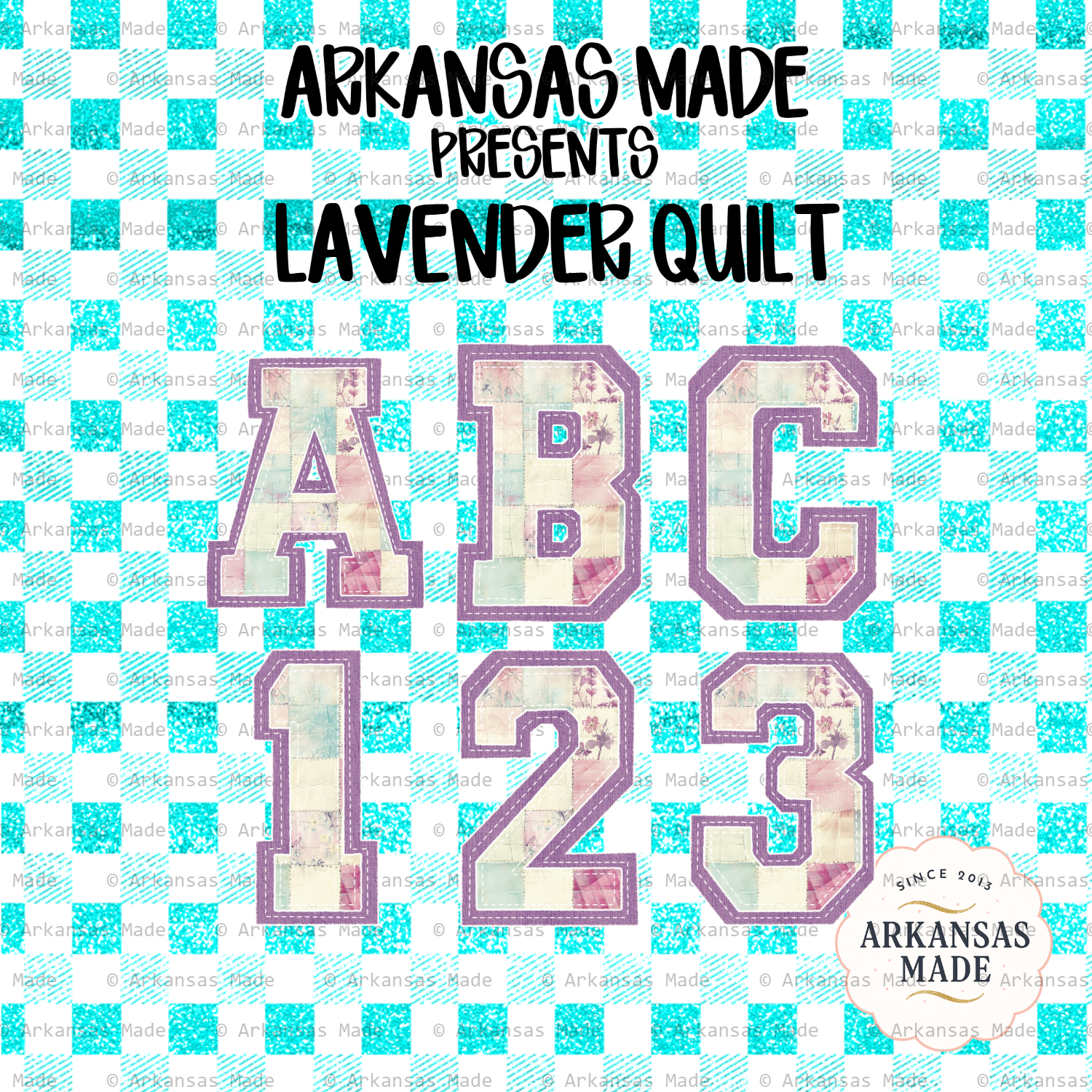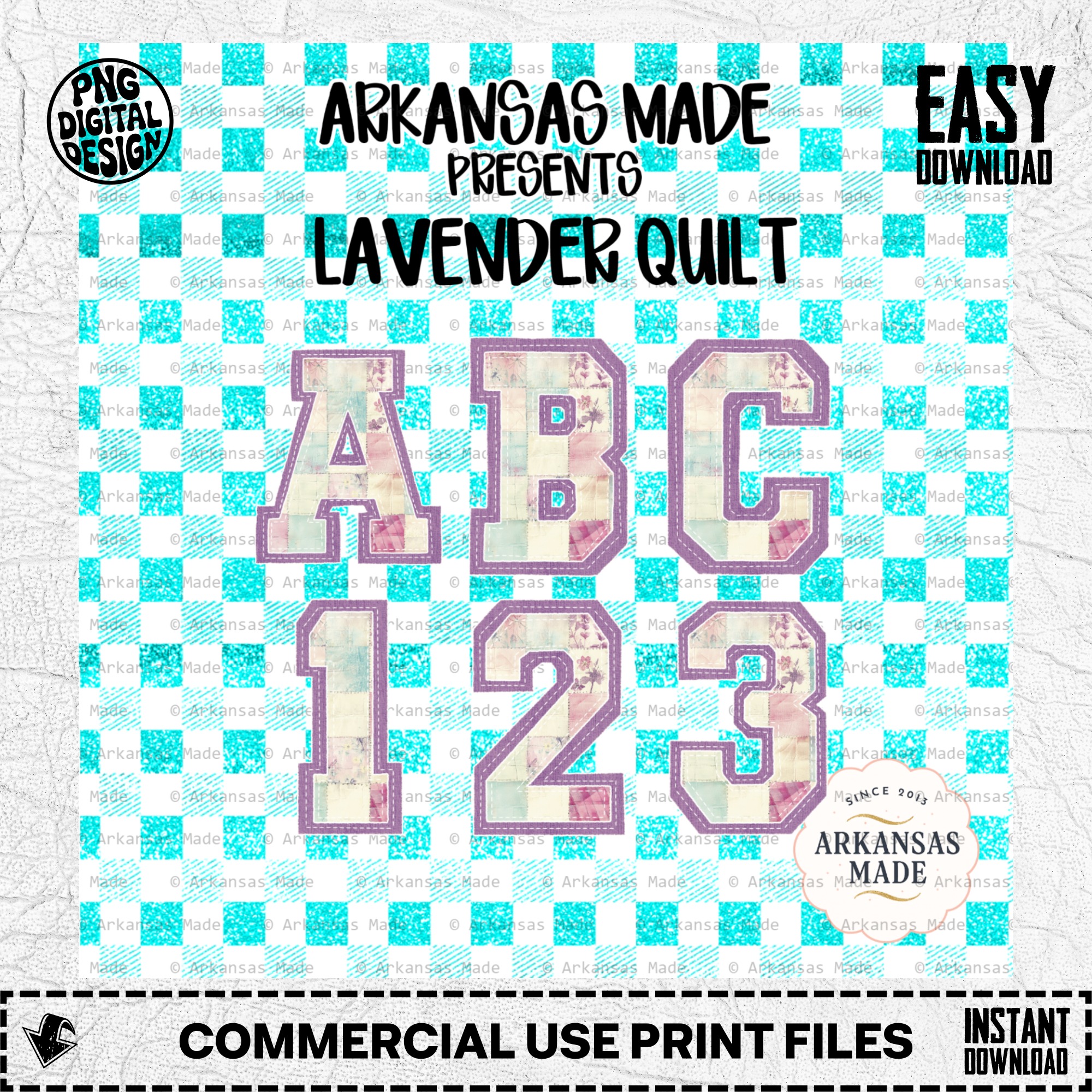
Lavender Quilt Alpha PNG Digital Alphabet Letters, Patchwork Font Sublimation Design, Cottagecore Craft Supply Download
Discover our Lavender Quilt Alpha PNG Digital Alphabet, perfect for charming sublimation designs and personalized crafts. Instant download for your creative projects! This beautiful quilted letter and number set features a delicate patchwork design with a faux stitched effect, evoking a cozy cottagecore aesthetic. Ideal for crafters, DIY enthusiasts, and small business owners creating custom apparel, nursery decor, or unique gifts. Perfect for baby showers, birthdays, or adding a personal touch to any handmade item.